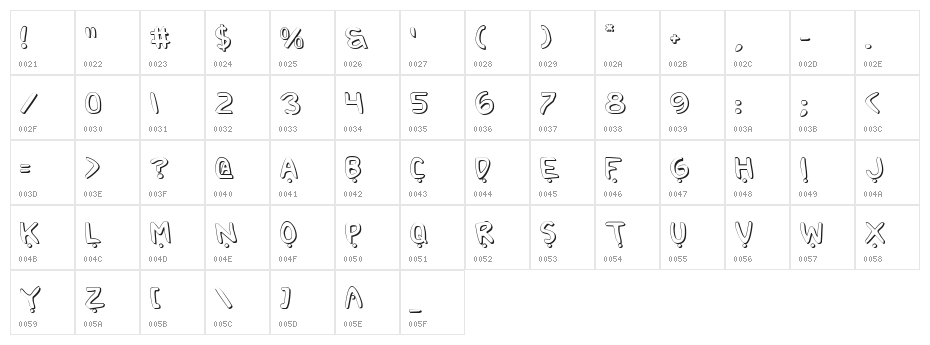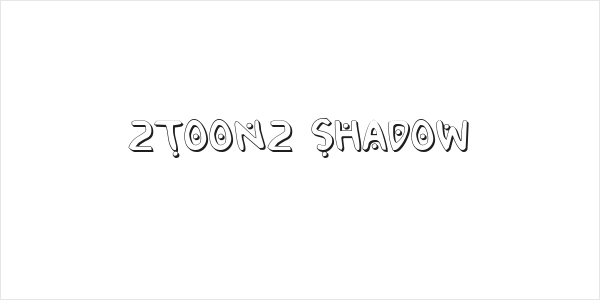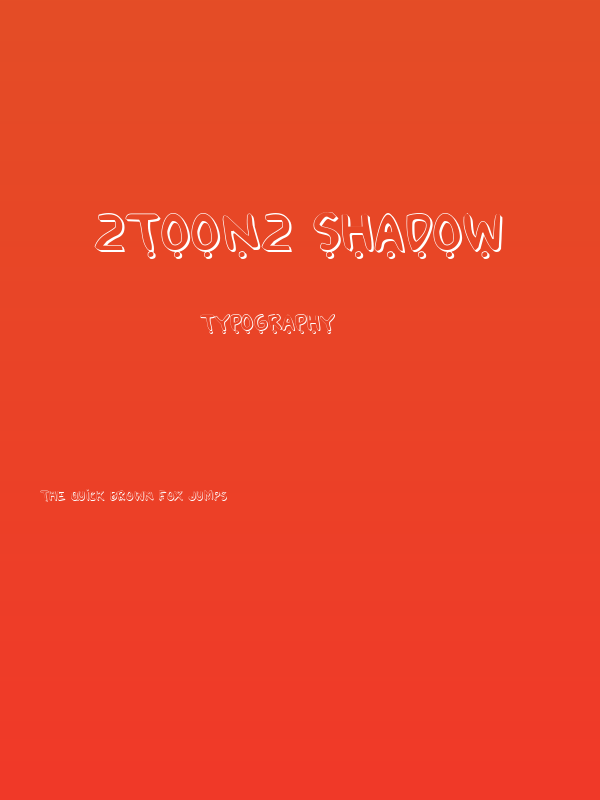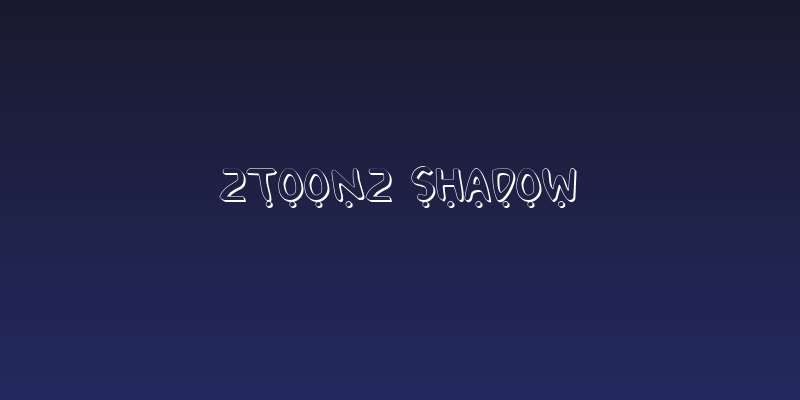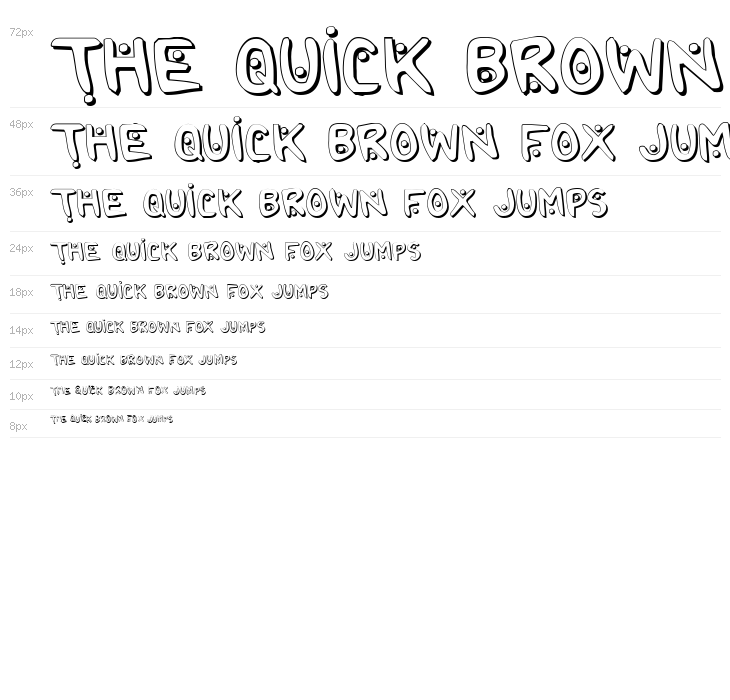
2Toon2 Shadow Font
2Toon2 Shadow Description
This playful and bold font features a cartoonish style with a shadow effect that adds depth and dimension to each character. The letters are rounded and have a whimsical, fun appearance, making them ideal for projects that require a lighthearted and engaging look. The shadow effect is consistent across all characters, enhancing the three-dimensional feel. This font is perfect for children's books, comic strips, or any creative project that aims to capture attention with a lively and animated style.
| Overall Style | Playful, Cartoonish, Fun |
| Proposed Projects | Ideal for children's books, comic strips, playful posters, and animated graphics. |